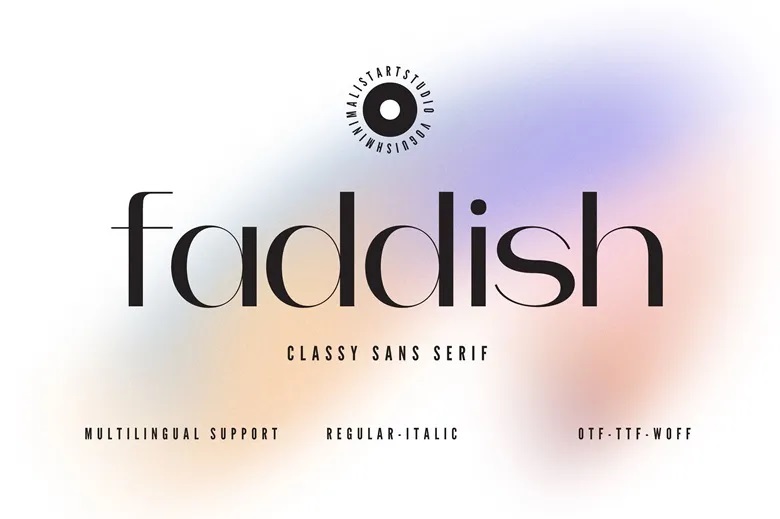
Faddish Font
Faddish is a classy sans serif font. It comes with both normal and italic effect. It fits many situations and design themes like packaging design, posters, cosmetics, social posts, logos, etc. Use it confidently in your creation because you will surely add a touch of luxury to any design you are working on!
Faddish Sans Serif Font